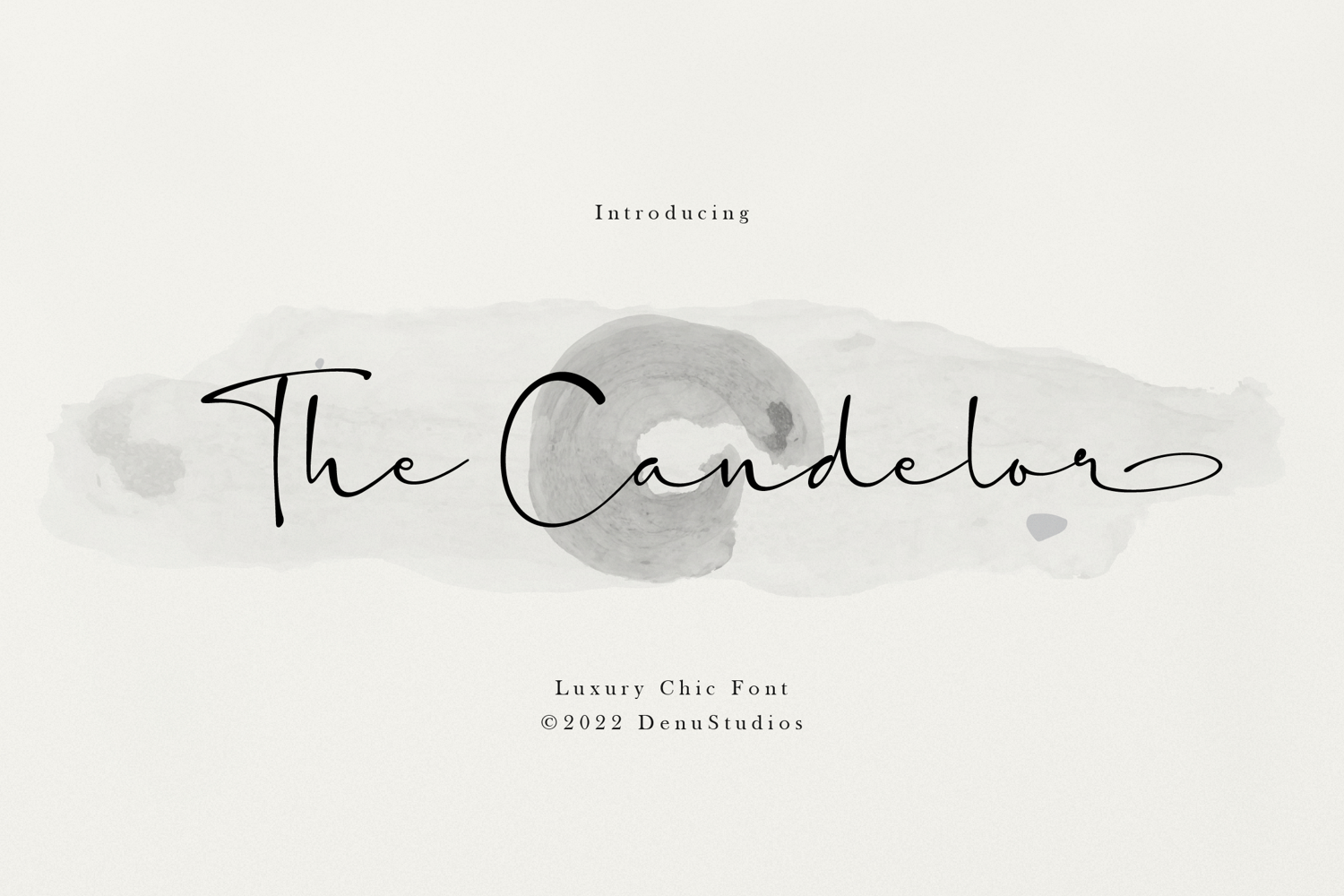
The Candelor | Luxury Chic Font, from Denustudios, suitable for any projects such as: logos, branding projects, homeware designs, product packaging, mugs, quotes, posters, shopping bags, t-shirts, book covers, name card, invitation cards, greeting cards, label, photography, watermark, special events, and all your other lovely projects that need a Script taste.